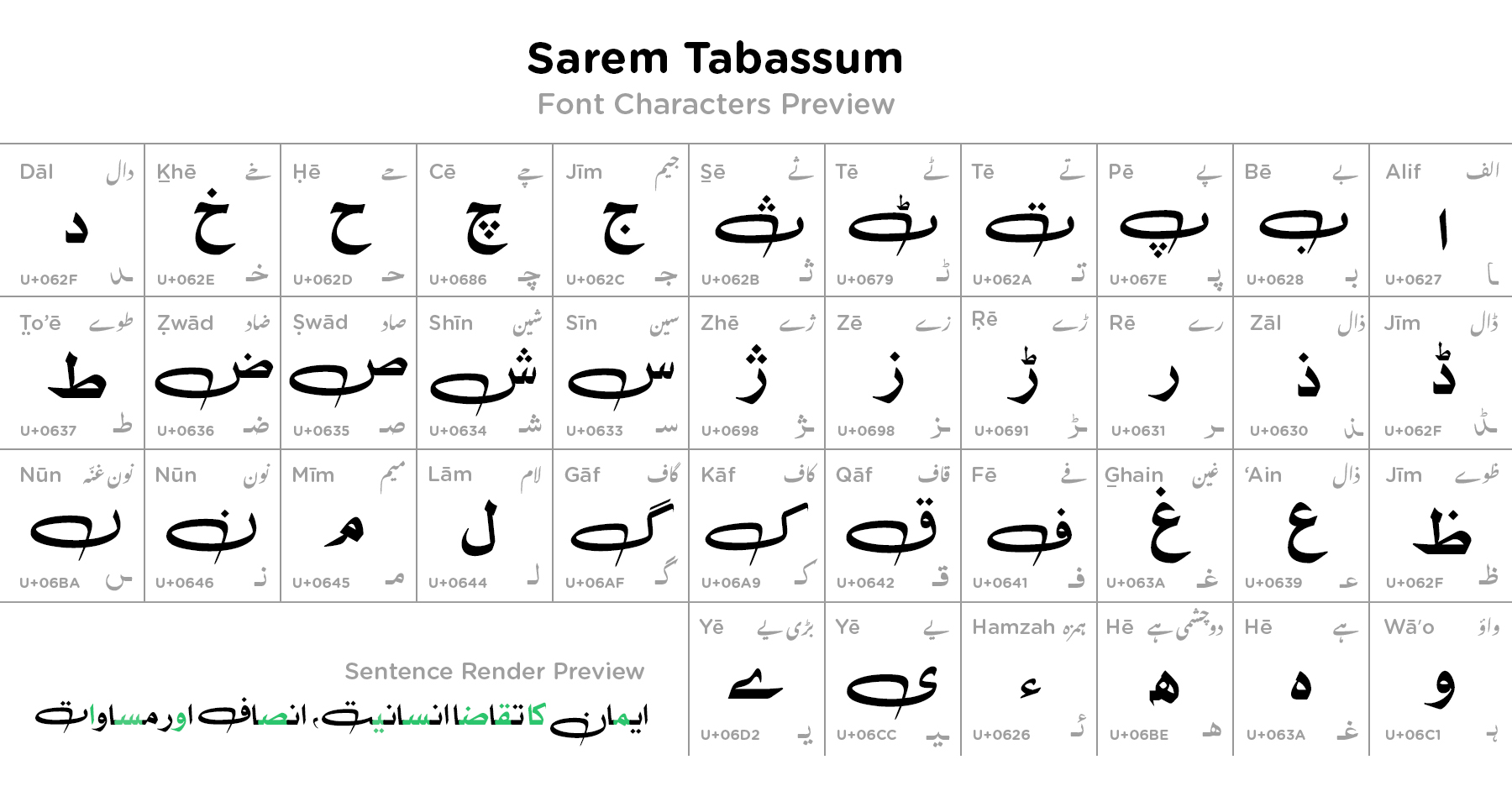
Sarem Tabassum is a True-type Sindhi font that radiates modern elegance. Designed by a renowned Pakistani font designer, Sanaullah Mangnejo Sarem, under the manufacturer Ayesha Graphics, this font comes in a Medium (Normal) font width. Compatible with a range of modern Unicode standards with a glyph count of 626, this font is highly versatile. The letters are widely spaced with sharp edges, giving the feel of Arabic ink writing. It is based on traditional Naskh and Diwani scripts with the flair of modern calligraphy. The elongated curly terminal suggests its inspiration from natural Qalam writing. Moreover, it has a wide and geometric look, which makes it highly readable. However, due to its intricate design, it is not preferred in longer texts, limiting its practicality. Its elegant overall look and spacious letterforms make it perfect for magazines, posters, newspapers, and book titles. It is compatible with Sindhi, Urdu, Saraiki, Arabic, and Persian, along with other regional languages. So, look no further than Sarem Tabassum if you’re looking for a font that is both very stylish and adaptable.